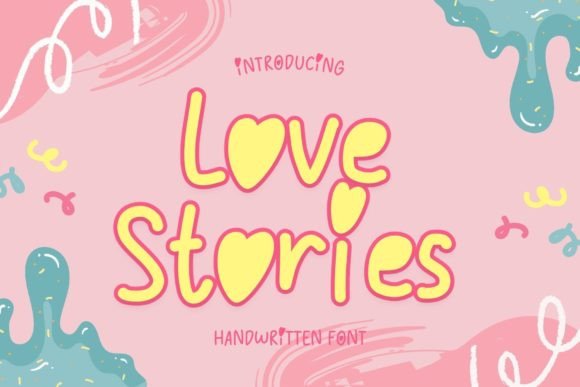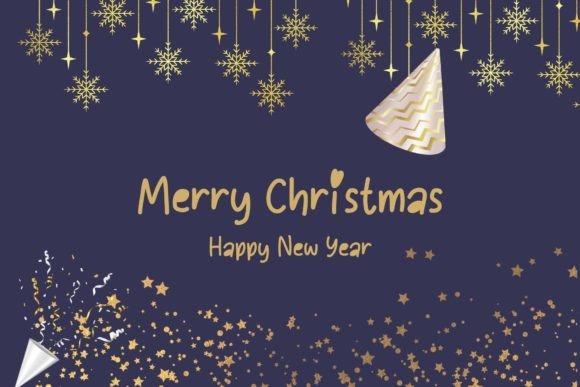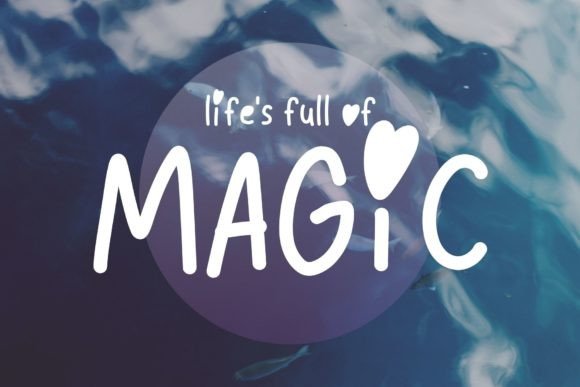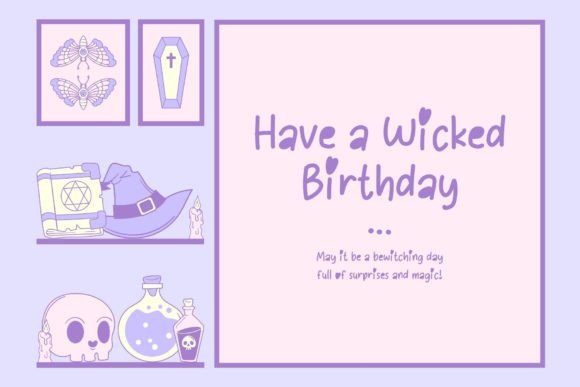
Love Stories Font: A Cute Handwritten Font for DIY & Cricut Projects
About the Love Stories Font
Elevate your designs with Love Stories Font, a font that combines sophistication with readability. Love Stories is a cute handwritten font. It embodies playfulness and authenticity and is the perfect choice for all your favorite projects such as blog posts, logos, branding, ads, invitations, greeting cards, planners, photo albums, decorations, and much more. Add it to any of your designs, and enjoy the results!
Love Stories’ playful, authentic style shines in projects requiring a touch of handwritten charm. Ideal applications include logos for boutiques, wedding invitations, and social media graphics. It also works well for short headlines and packaging designs where a friendly, approachable feel is desired. However, its informal nature makes it unsuitable for body text or UI elements demanding high readability.
For a balanced aesthetic, pair Love Stories with a clean sans-serif like Open Sans for body copy or a classic serif like Garamond for a touch of elegance. A geometric sans-serif such as Montserrat can provide a modern counterpoint, while a script font like Great Vibes offers a cohesive, handwritten feel, amplifying the overall playful tone.
The font’s core personality is undeniably friendly and approachable, making it perfect for brands focused on warmth, handmade aesthetics, or a personal touch. Avoid using it for projects requiring a sophisticated or corporate image.
Love Stories Font Usage Examples
Love Stories Font Example